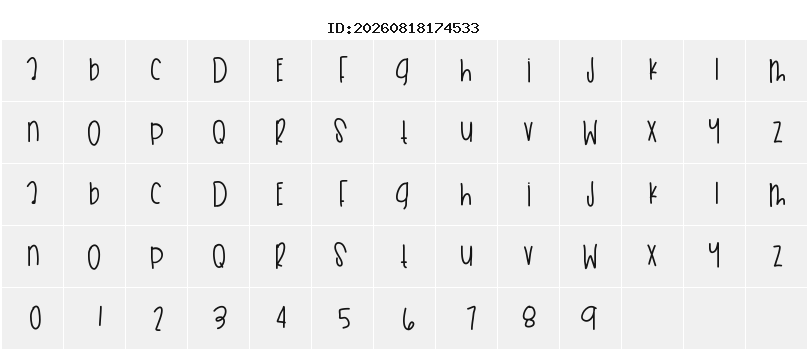
SkyDunkWishes Preview
• Font Name: SkyDunkWishes
• Full Font Name: SkyDunkWishes
About SkyDunkWishes.ttf
SkyDunkWishes.ttf is a modern, elegant sans-serif font designed for ultimate readability and visual harmony. Perfect for branding, headlines, web design, and print materials.